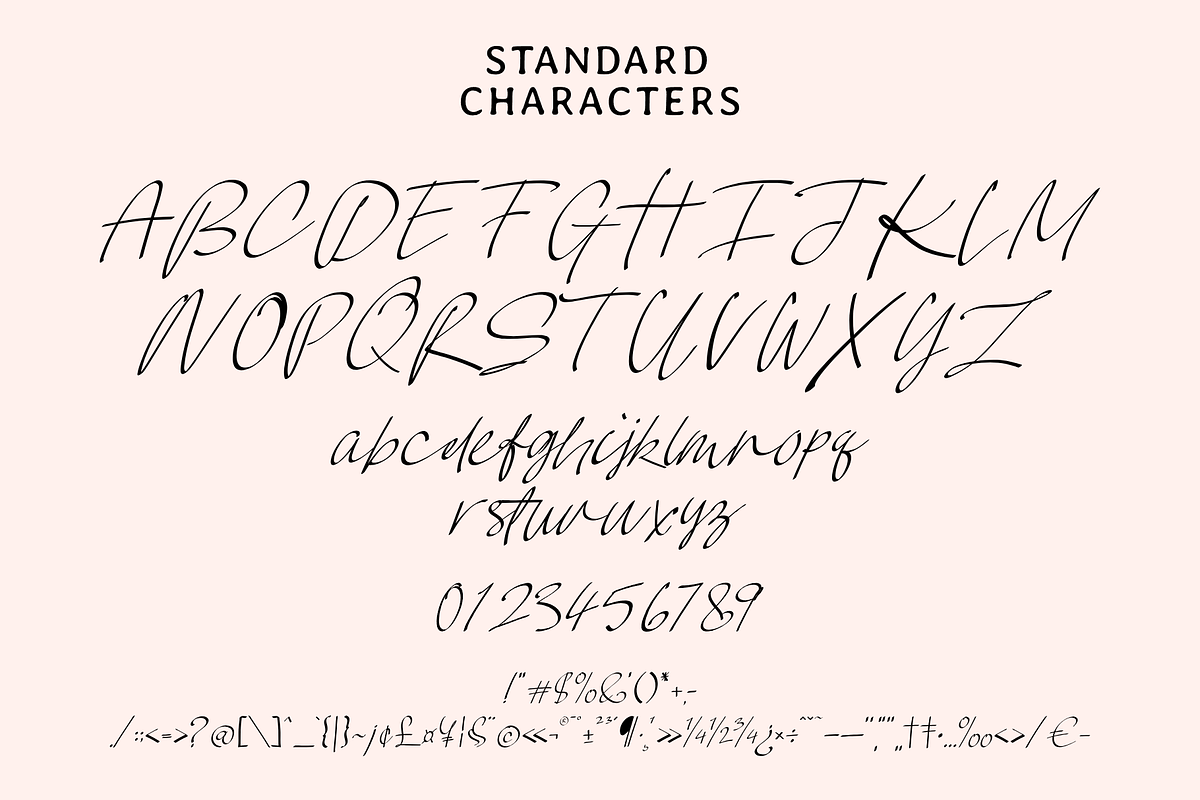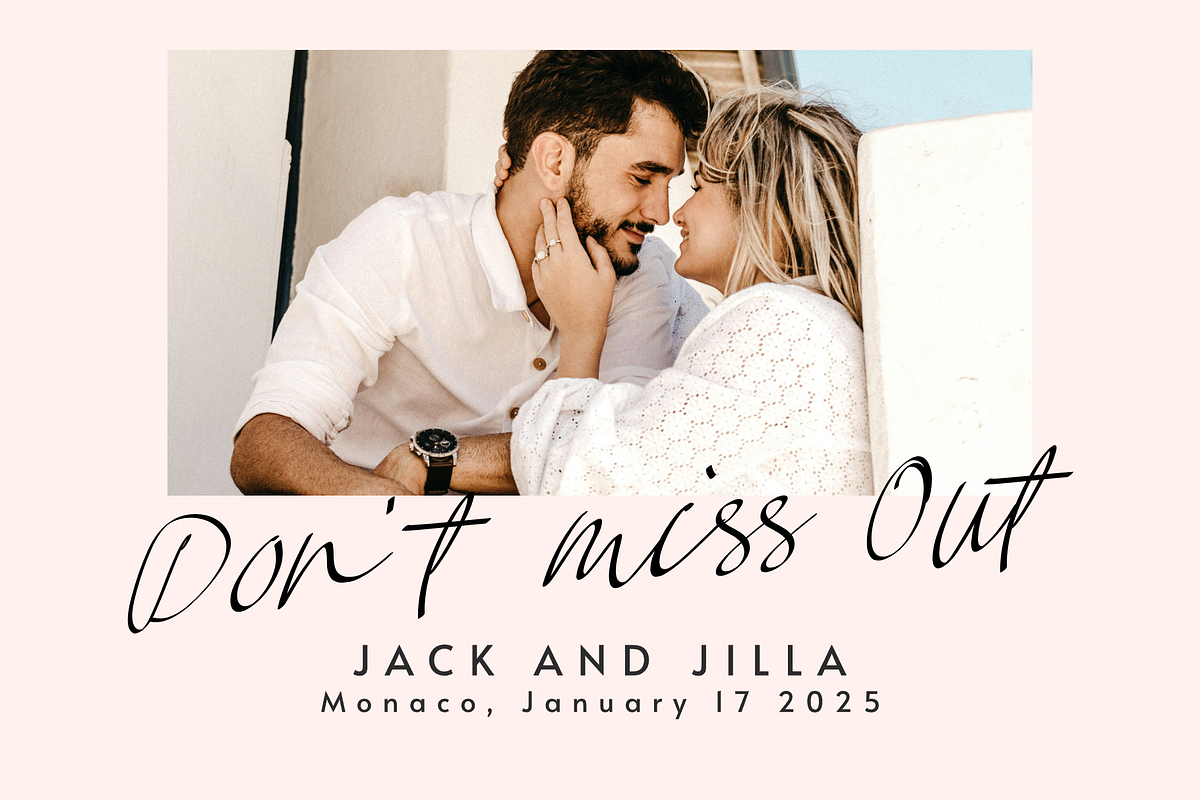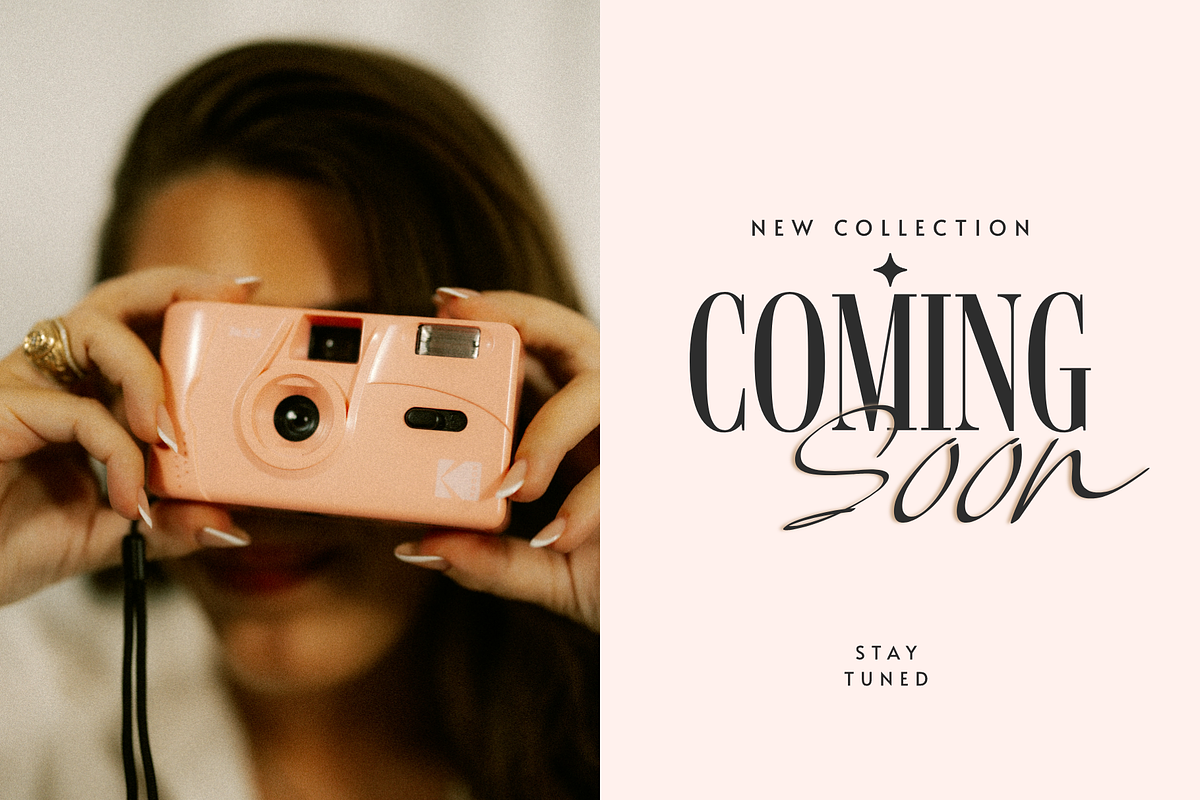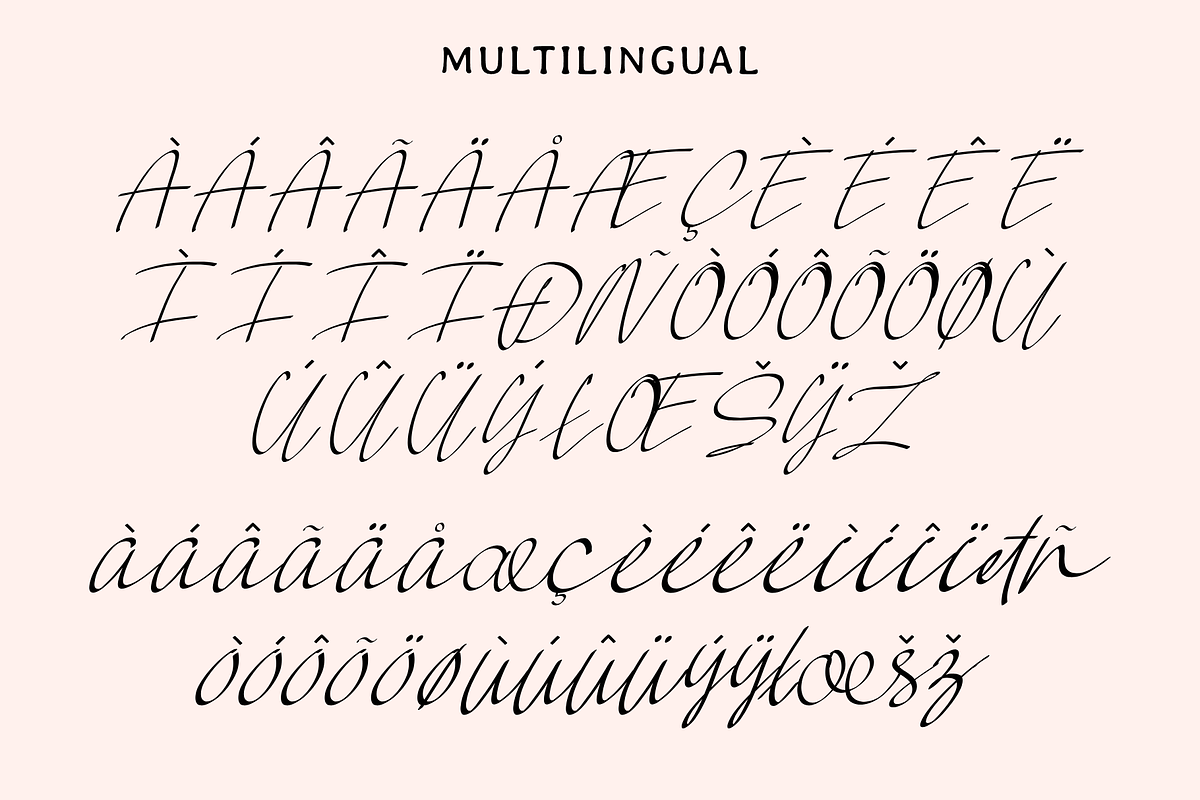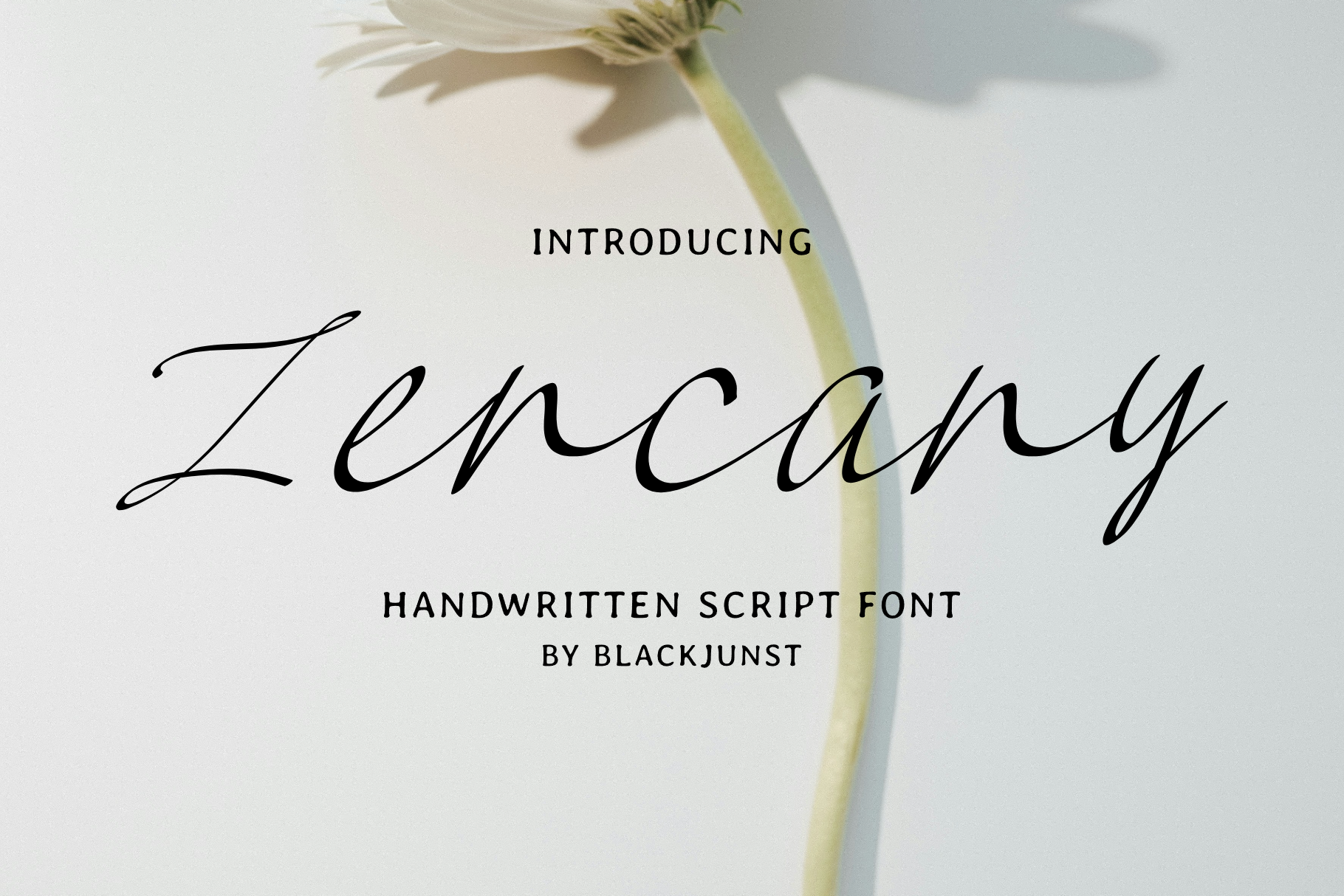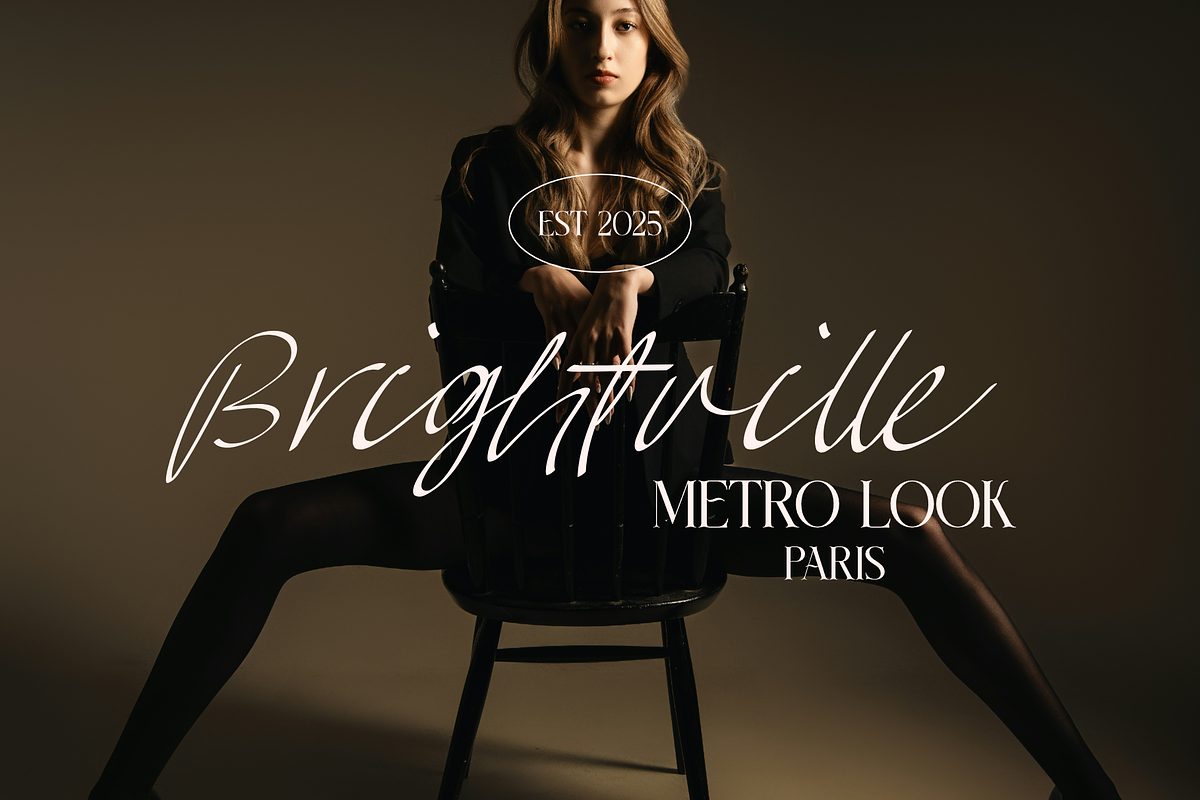
Zencany – Handwritten Script Font
Zencany a handwritten script font that embodies both elegance and simplicity in every stroke. Crafted with gentle, natural curves, Zencany offers a calm yet expressive character, making it the perfect choice for design projects that value personality and visual beauty.
Zencany is ideal for branding, wedding invitations, greeting cards, inspirational quotes, product packaging, and social media designs. Its smooth, modern script style makes it highly versatile and easy to pair with various design concepts.